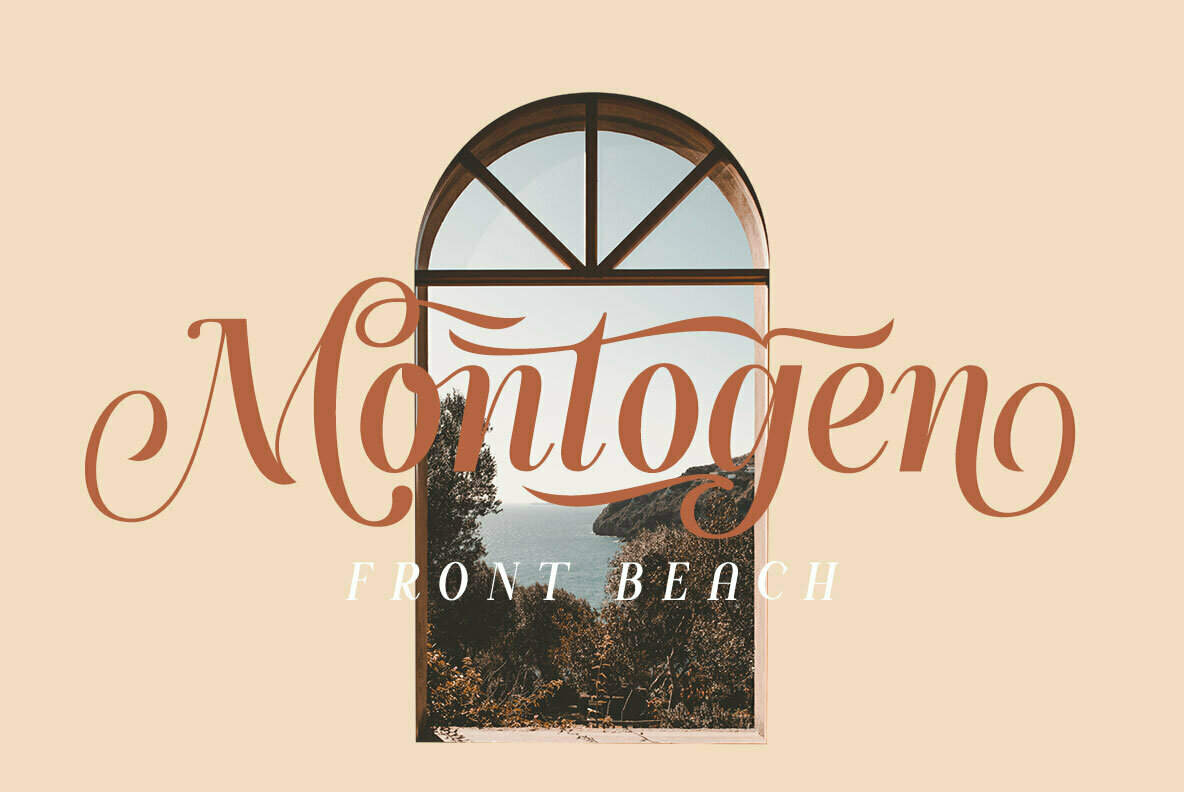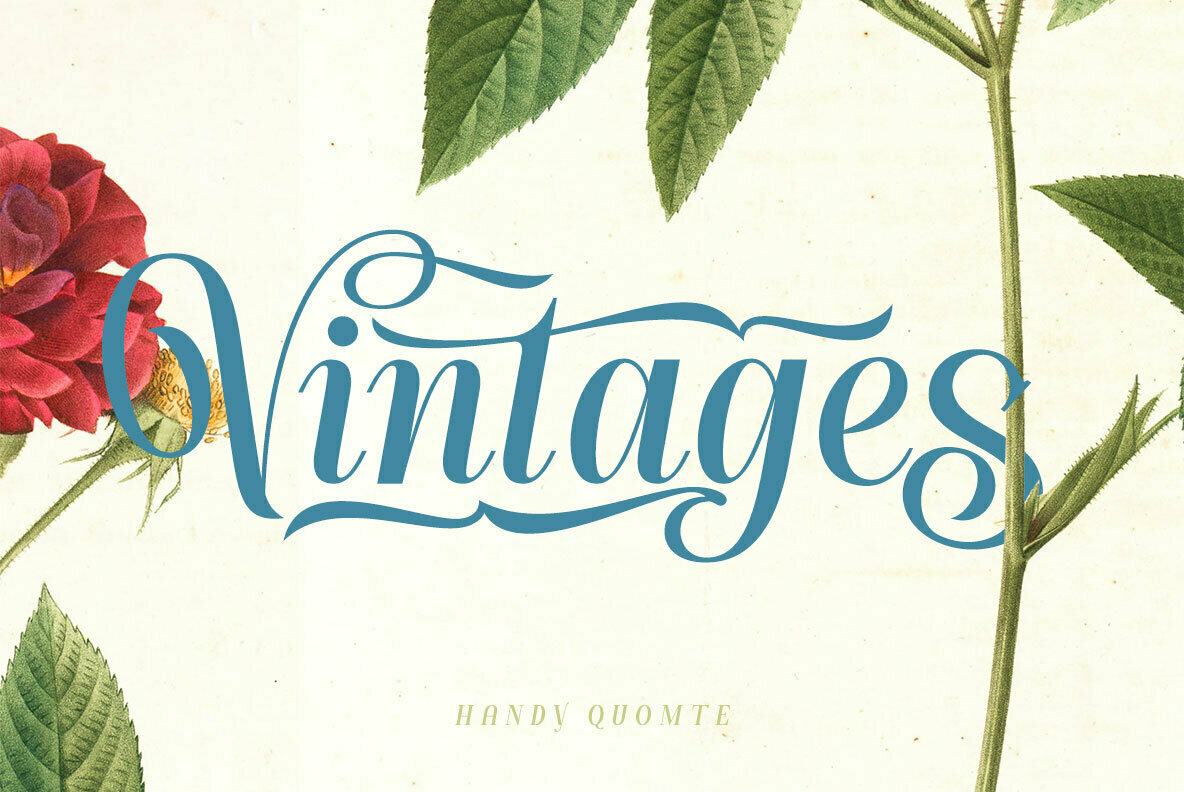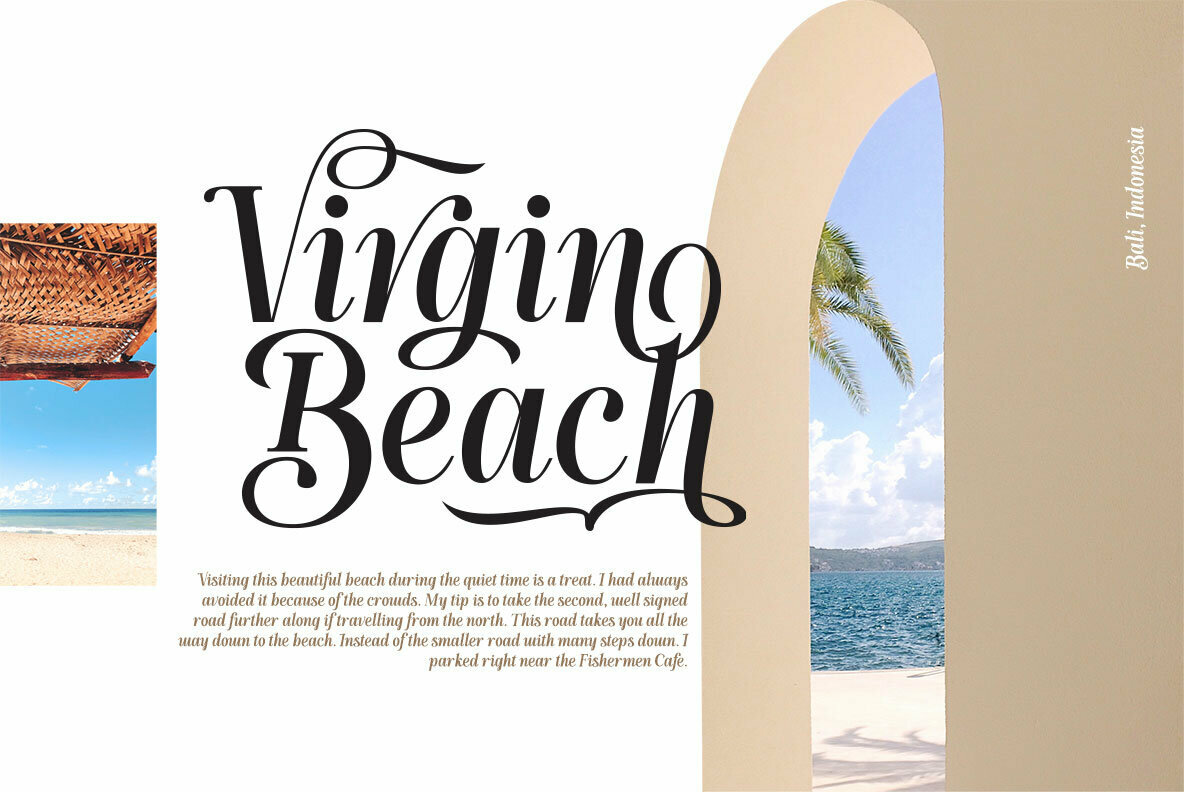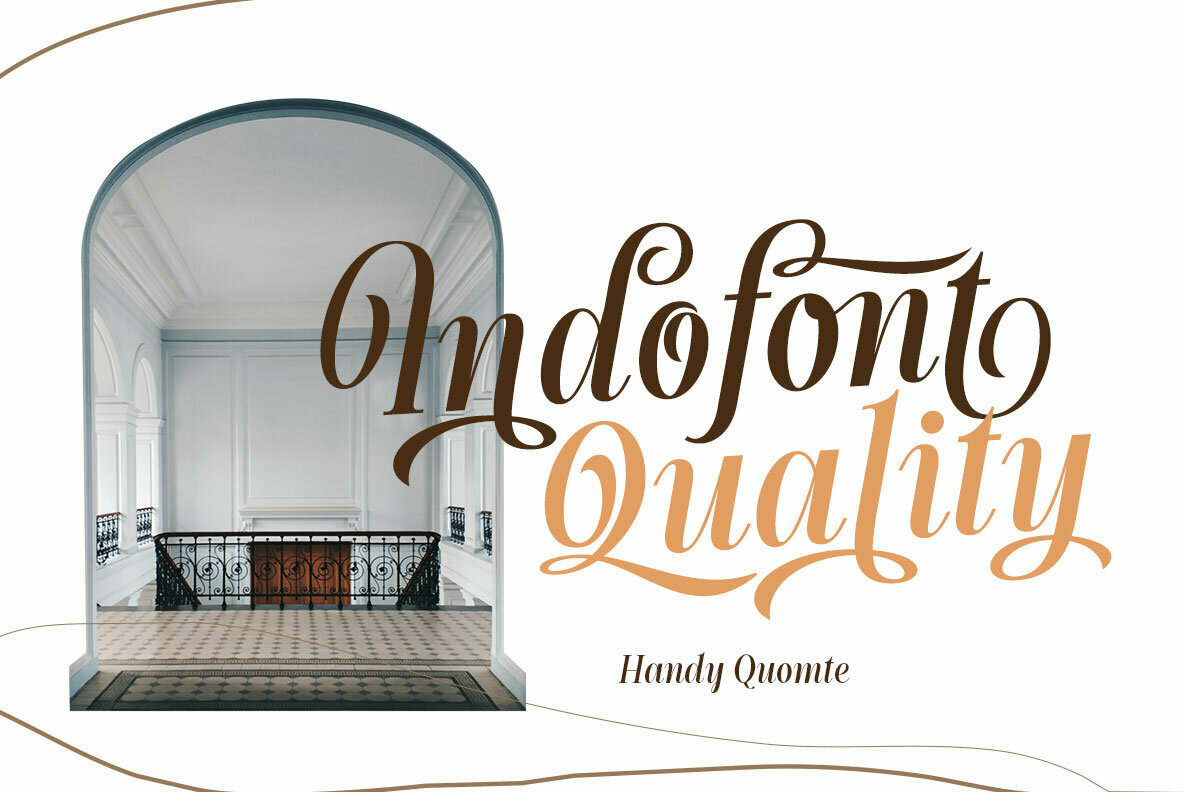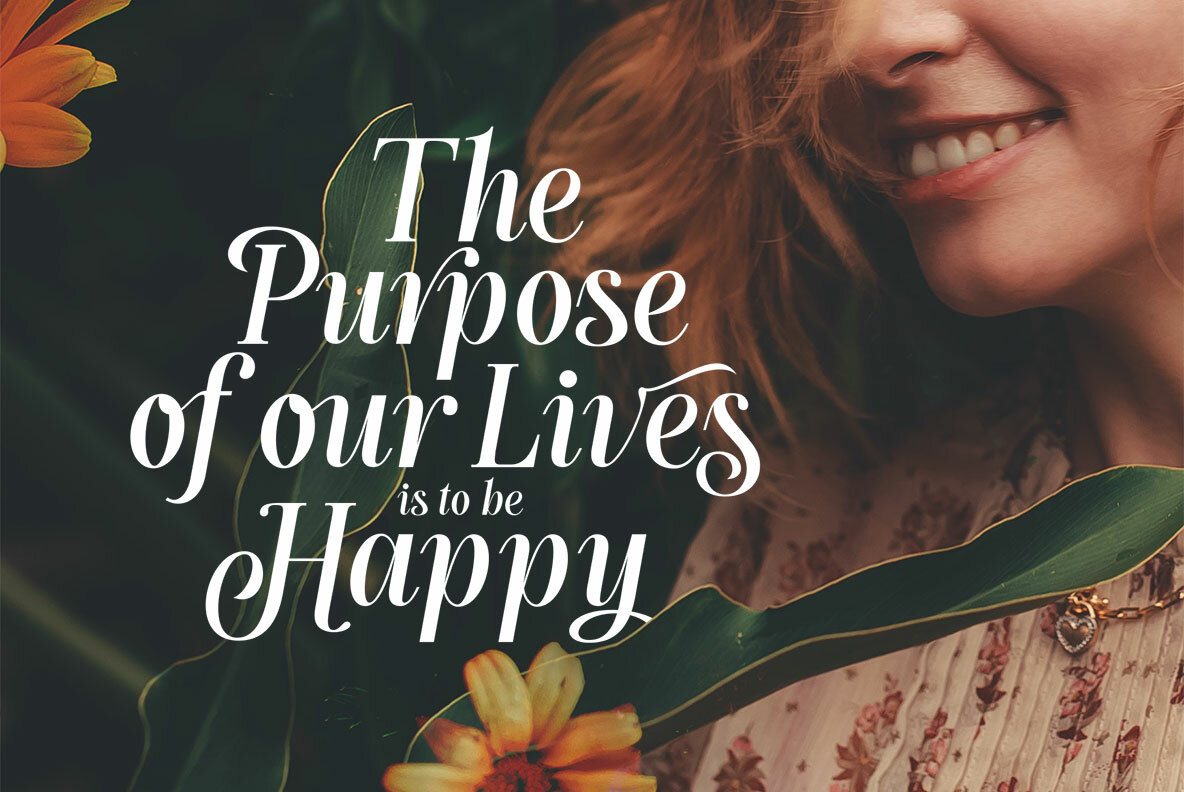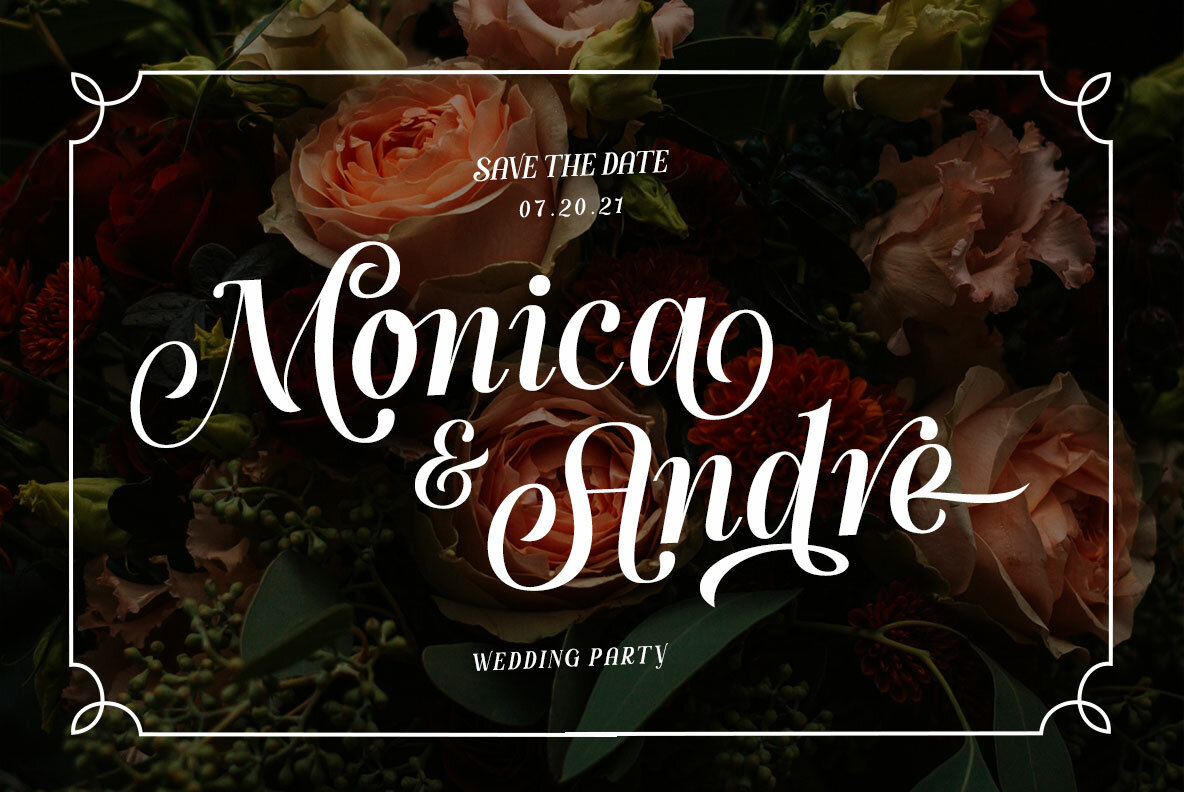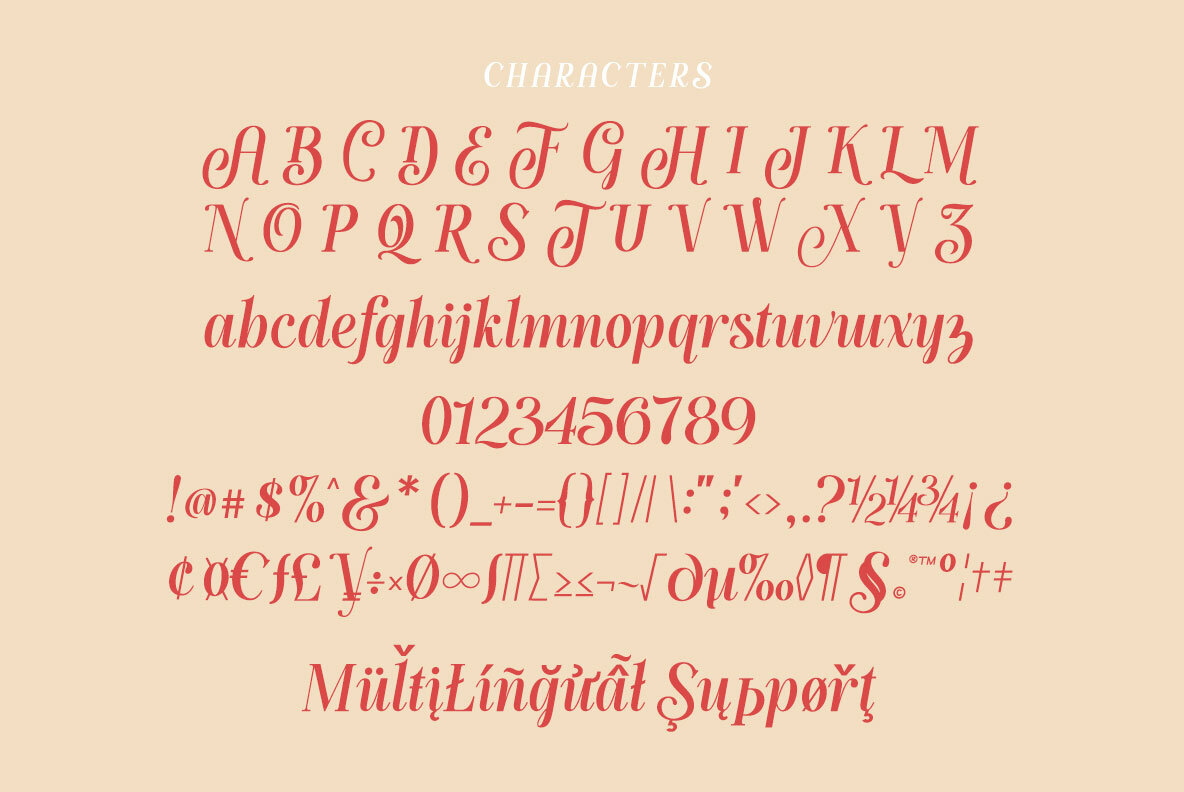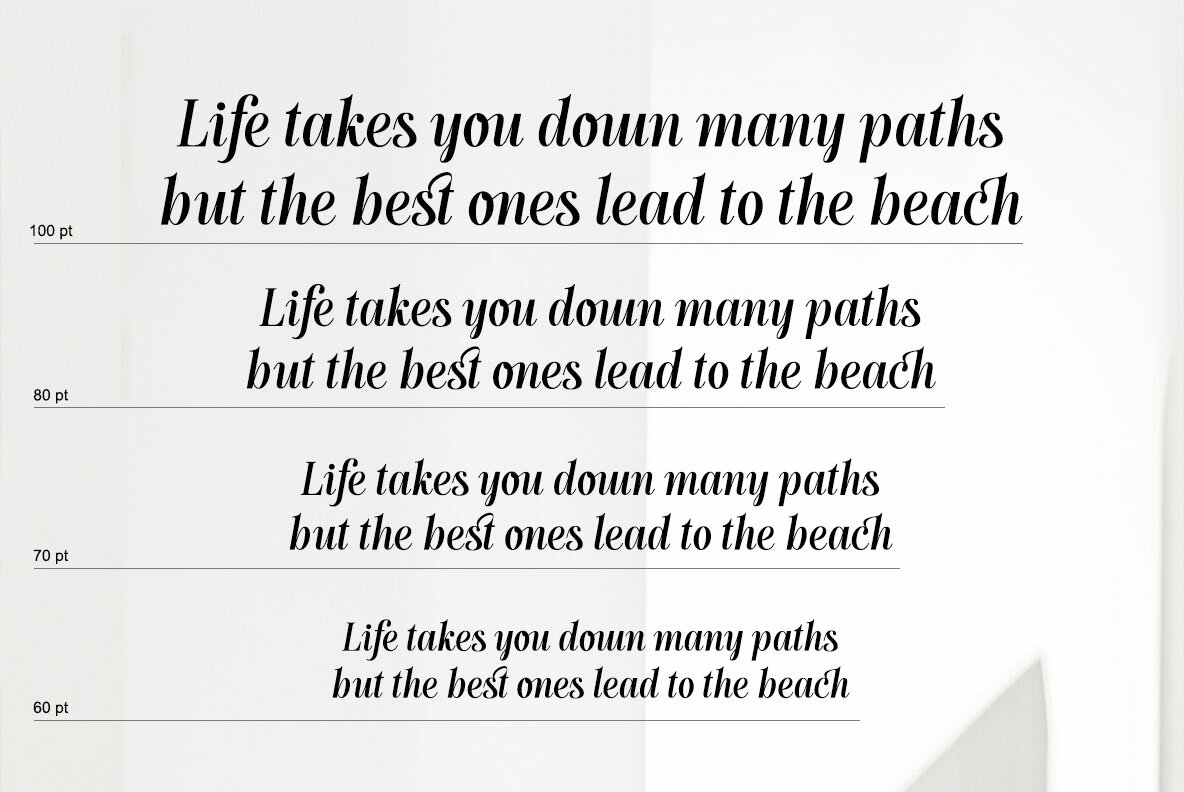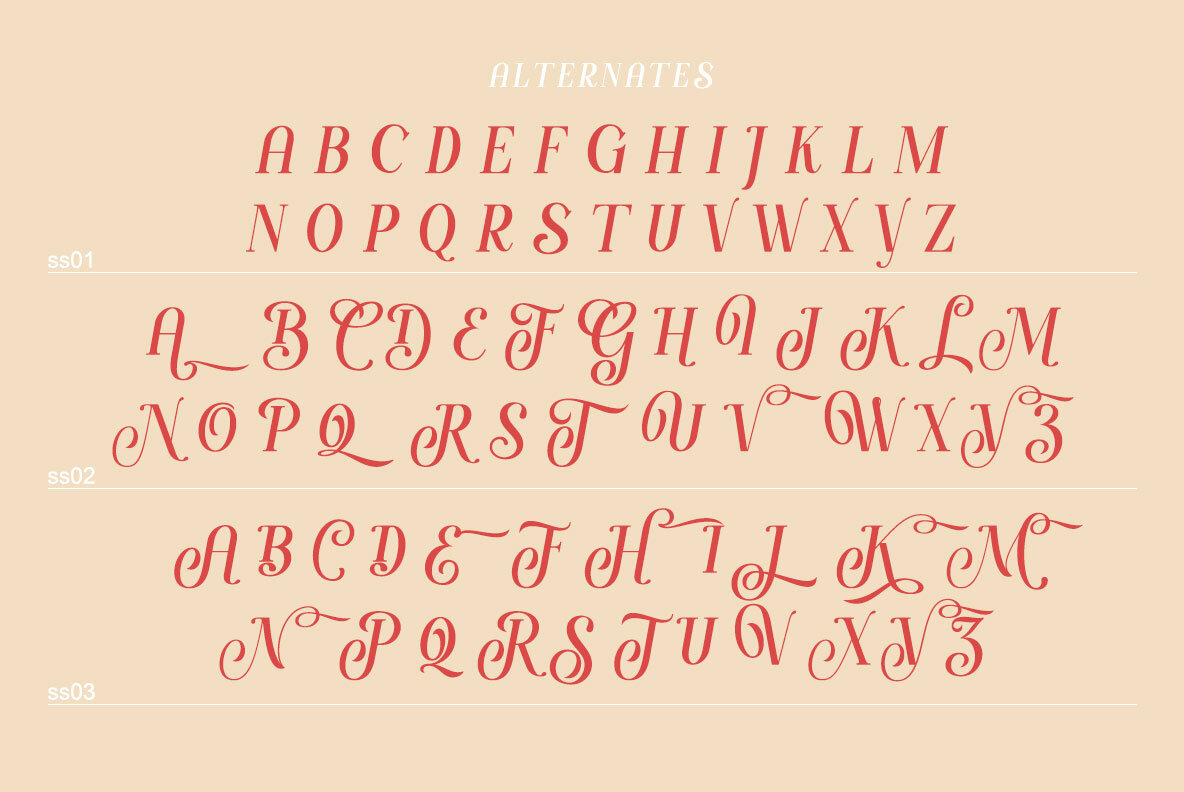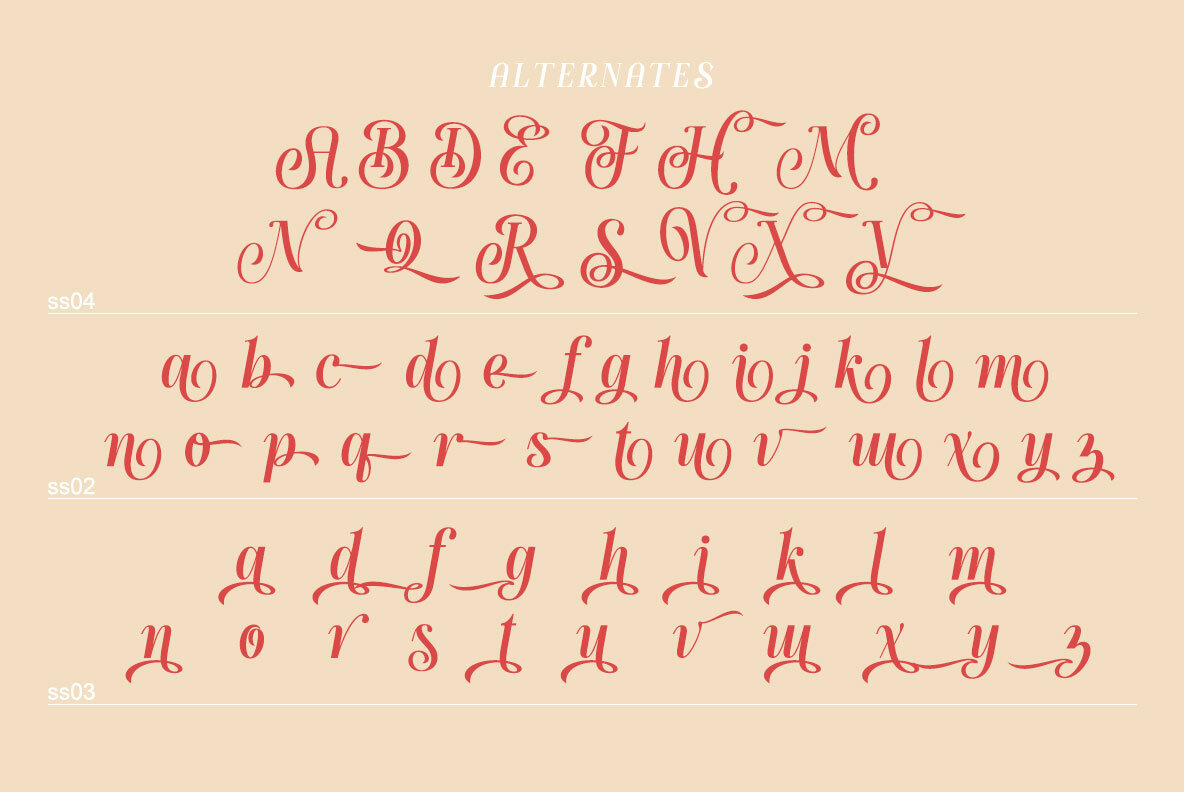
Handy Quomte Font
Handy Quomte Regular
Rooted in the rich history of the 1800s, yet seamlessly intertwined with modern aesthetics, Handy Quomte offers a script typeface that exudes elegance and charm. The subtle details in its design deliver unique, graceful curves, making it a perfect fit for projects demanding sophistication. Whether you're crafting an elegant event invitation or developing branded materials with a soft touch, Handy Quomte provides a versatile solution. Supported by Unicode (PUA), this script is easy to use across various design and non-design applications.Handy Quomte: A Harmonious Blend of Classic and Contemporary